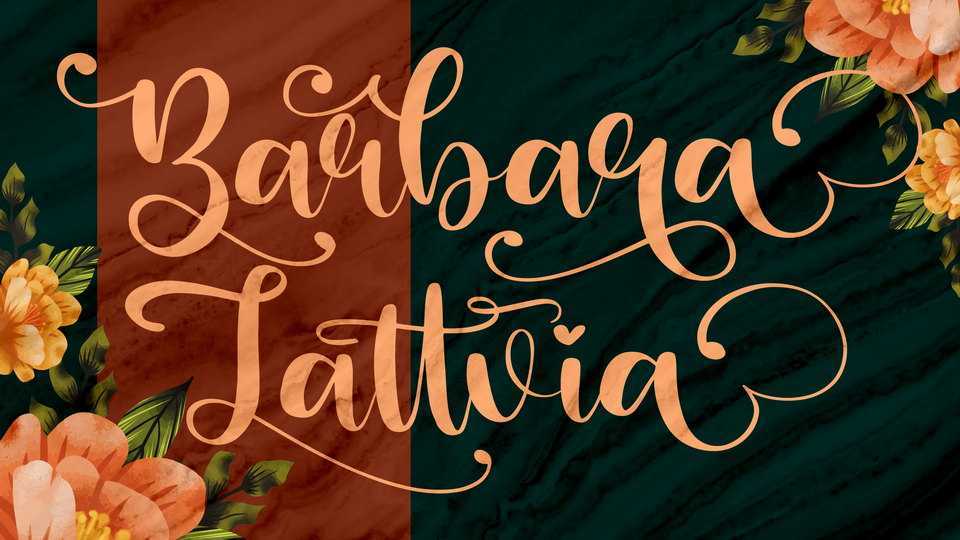
Barbara Lattvia Script Font › Fontesk – Download Grátis
Download Barbara Lattvia font, a beautiful handwritten typeface featuring romantic characters and a clean calligraphic style. Barbara Lattvia is perfectly suitable for any projects that need an authentic flair!
Designer: Perspectype Studio